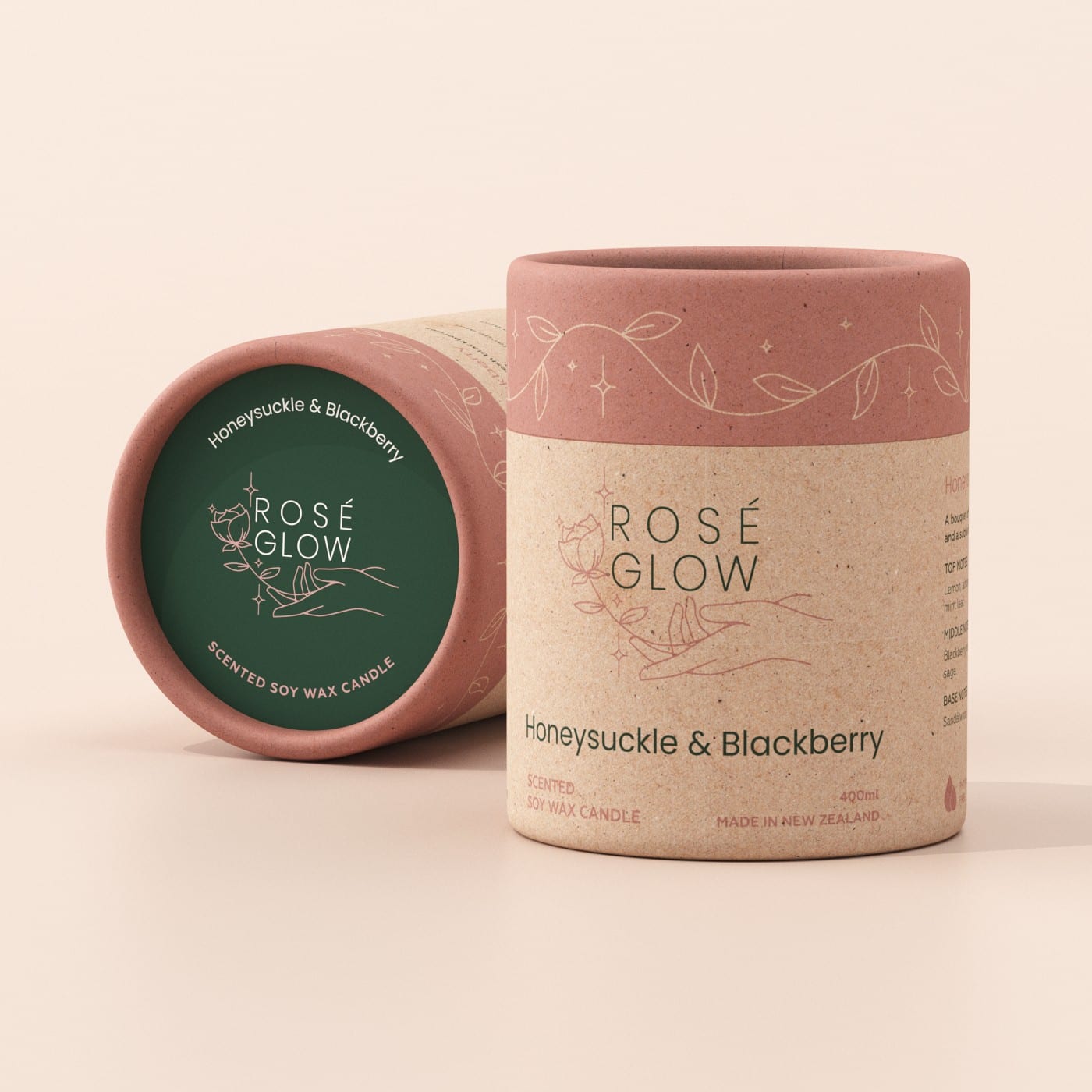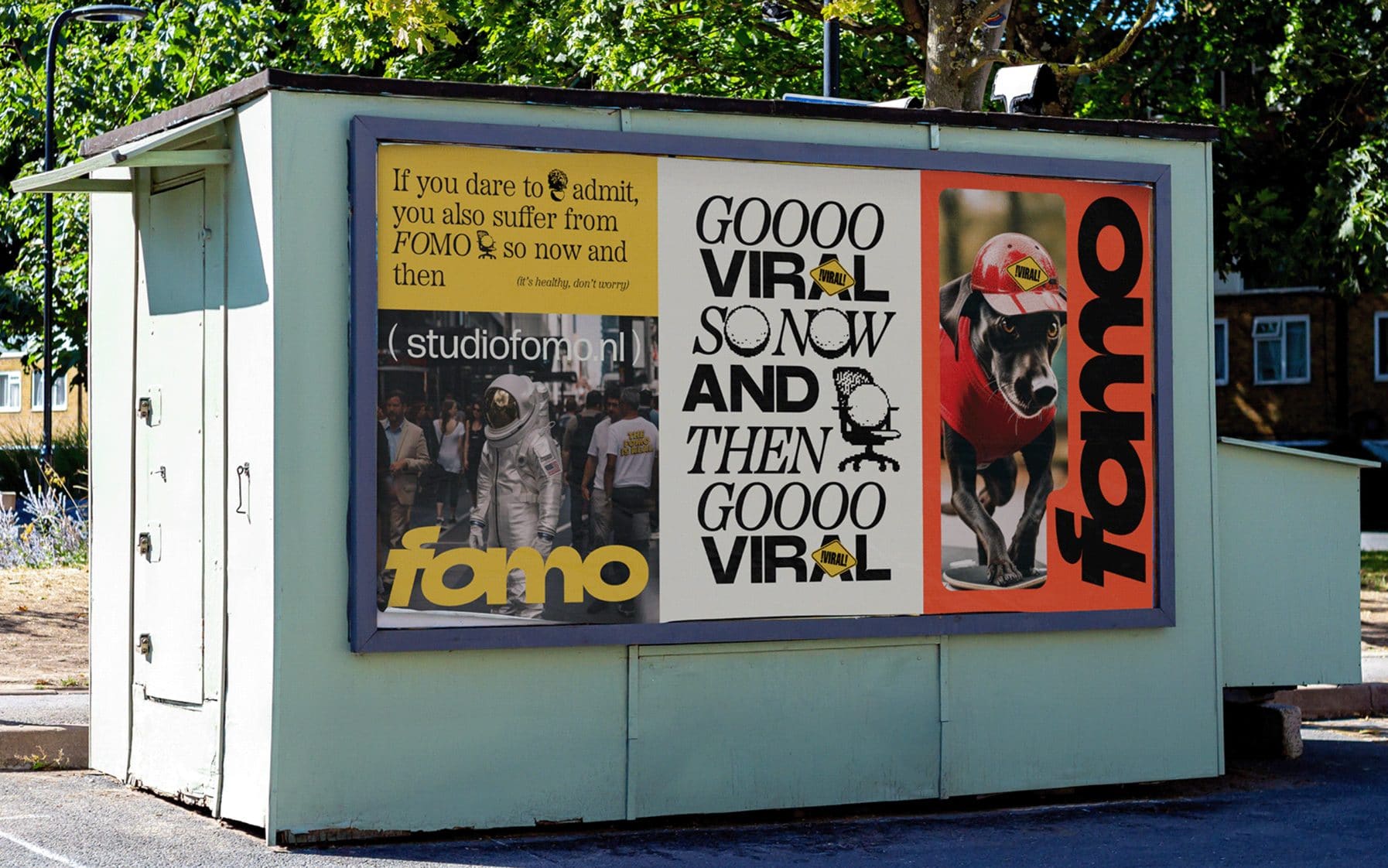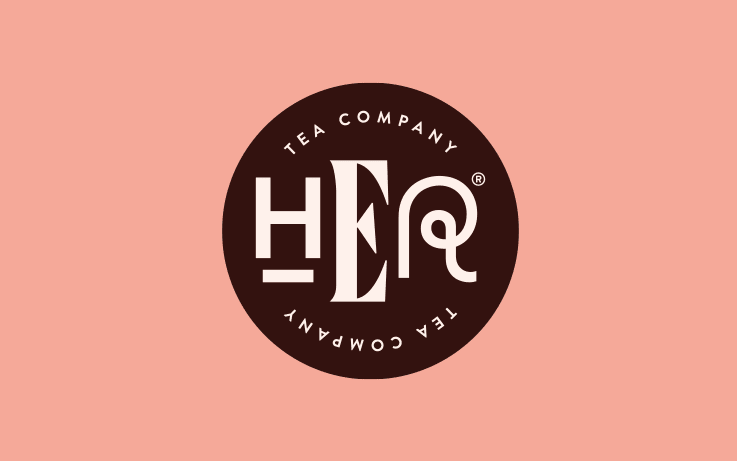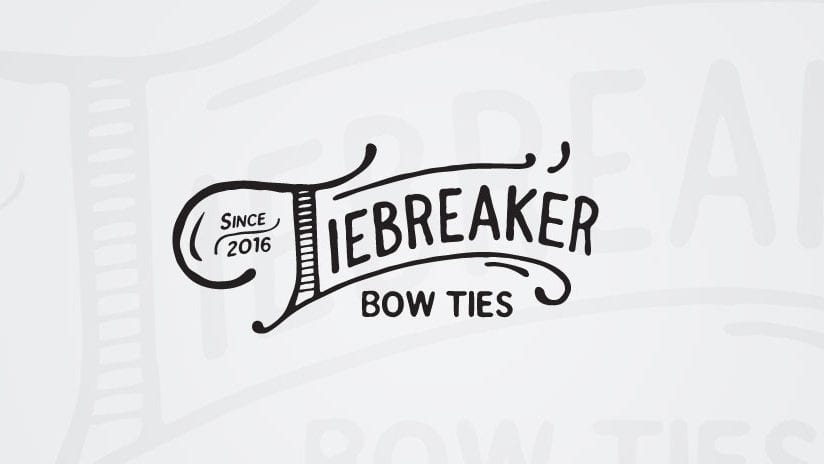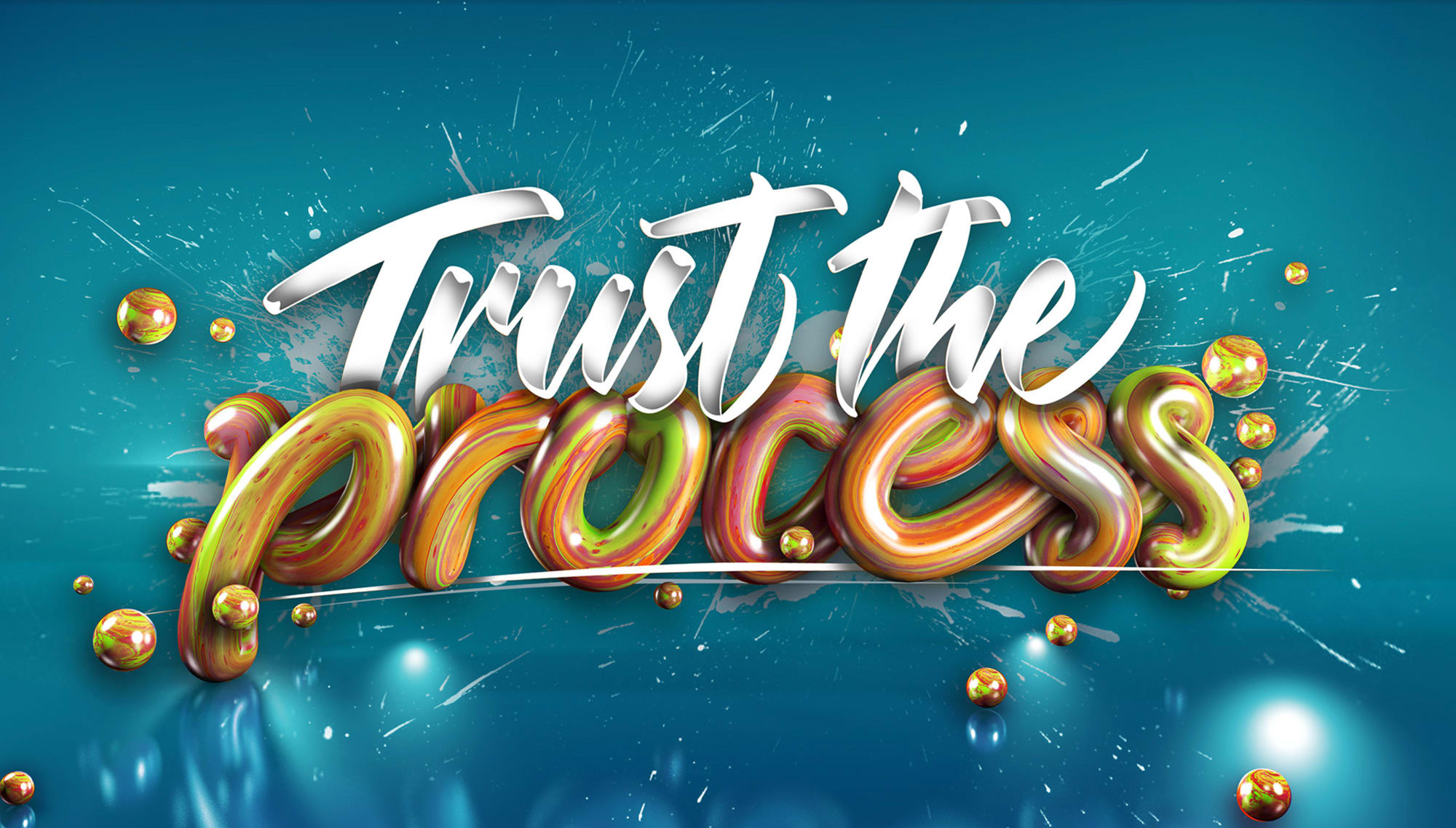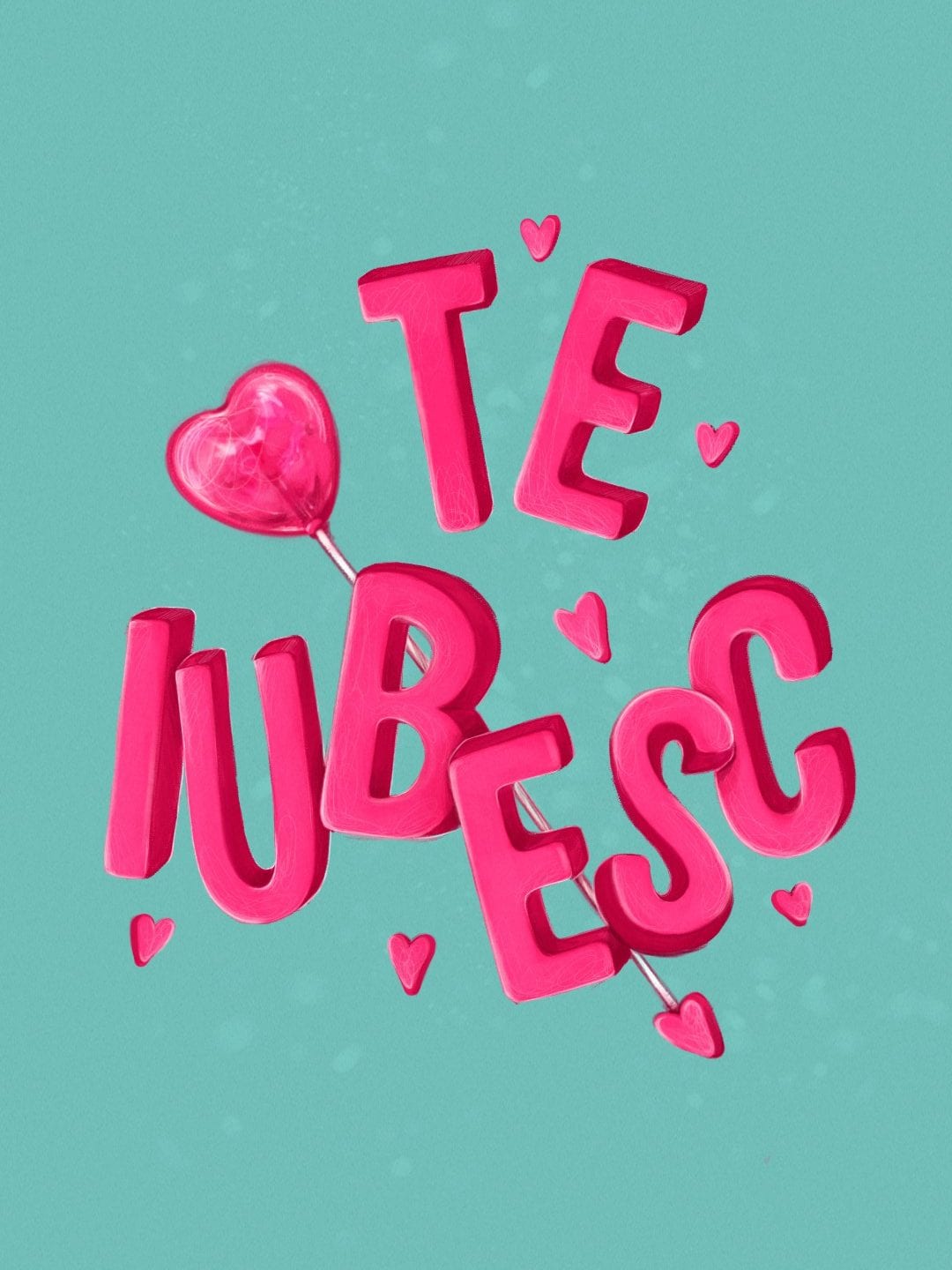
It’s a unique, transitional moment in the digital art world. And the 2024 font design trends reflect this. With so much change, between machine learning and generative AI, many font creators are finding renewed comfort in the hand-crafted techniques of the past. At the same time, a new generation of designers are pushing fonts to creative extremes through letters that move, take up space and drift into the realm of abstraction.
No matter the approach, these seven font design trends for 2024 spring from the imagination of typographers living in an unprecedented digital age. Whether you’re reimagining retro or crafting bold experiments, these fonts speak to readers far beyond their words and add a new frontier for businesses looking to express their brand and perspective on this new world.
7 alluring font trends for 2024
Ultra gothic
As the name implies, gothic fonts are veritable classics. Developed in the Middle Ages for manuscript scribing, the traditional gothic font features heavy black letters and calligraphic techniques like hairline flourishes and angular strokes. But these fonts, reminiscent of the pointed arches of medieval abbeys, have earned an enduring popularity. Just last year, goth went to the mall, but today, goth is growing up.
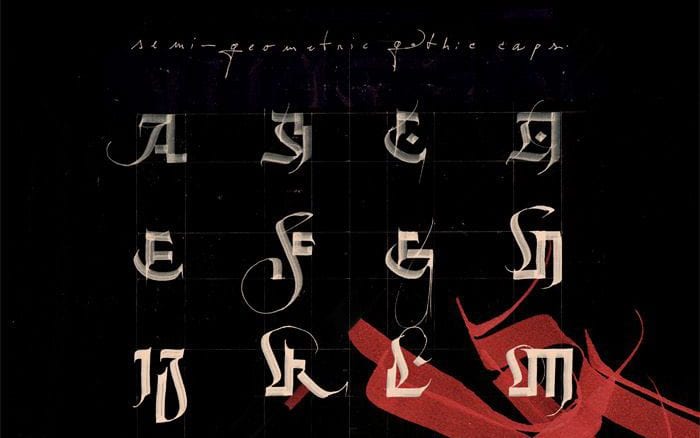
2024’s Ultra gothic trend uses digital tools to achieve effects that the practical business of scribing could not accommodate. These exaggerated strokes are decorative enough to rival medieval architecture, with intricate flourishes that border on illegibility. Gothic fonts are an eternally appealing style for how they combine stable forms with unexpected freehand, granting a personal touch to digital fonts. And while they do carry old-world connotations, the adventurous ornamentation of the ultra gothic fits right at home in magazine typography and logo design lettering.
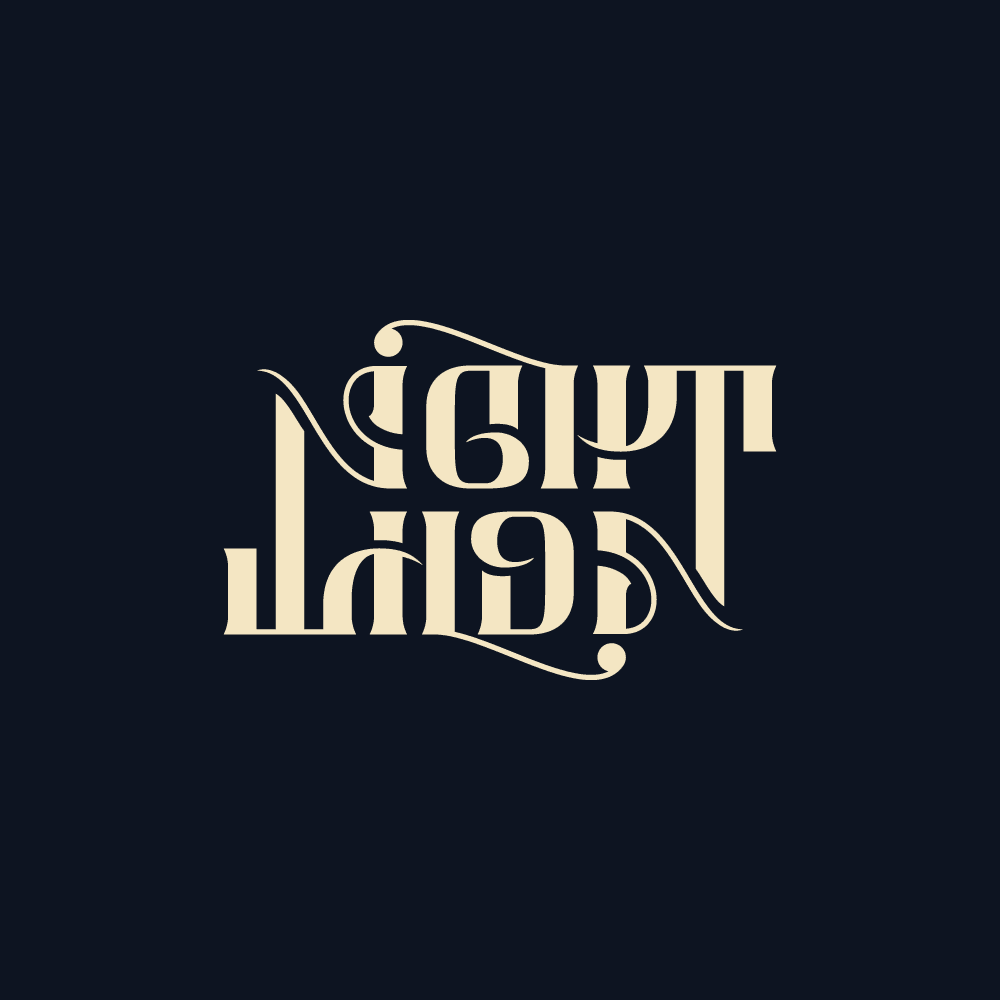
“The Neo Gothic style is already an obscure trend in architecture and literature and is gaining a spotlight in contemporary design with the use of ornaments, blackletter, and calligraphy to create beautiful visuals. It can be used to create high-end luxury brands visuals or even a fresh urban style, mixed with graffiti and street art elements.”
Shapeshifting lettering
If there’s one thing we can learn from the endless ways font designers reimagine the same basic alphabet, it’s that letters are full of shapeshifting magic. And in 2024, we’ll witness fonts that shapeshift right before our very eyes.
The shapeshifting lettering trend takes its inspiration from retro sources like rubber-hose fonts and 70s bubble letters. In this way, it evokes nostalgic joy while bringing the past to life through fluid movement. At the same time, the melting shape of these wobbly letters hints that something is not quite right here—it’s escapism but gently warped.
There’s an inherent tension in escapism because even while it transports the viewer to their happy place, the very need for an escape implies that there’s something to escape from. These fonts play on that tension with a comically corrupted cartoon style, making this trend popular for edgier contexts like music venue posters, streetwear and protest art.
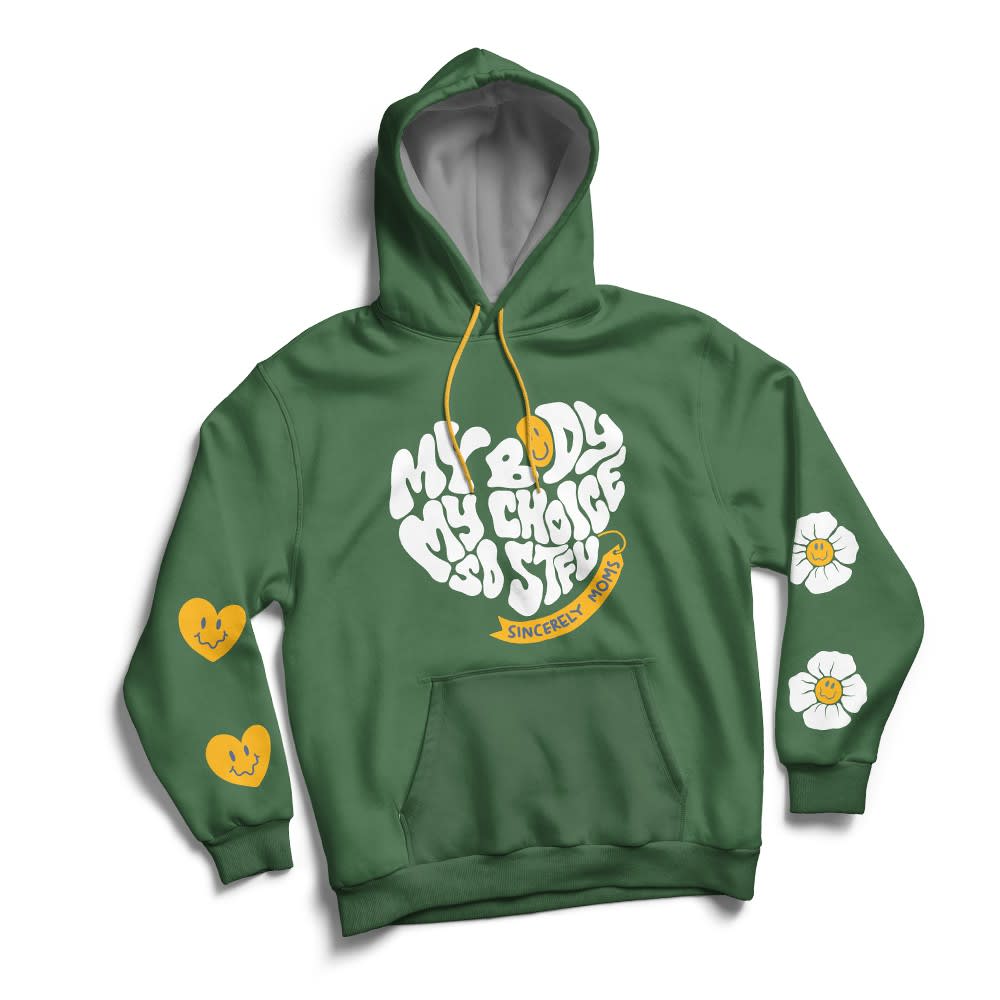
Source: by DR3 via Dribbble
“I love this style! Brings it to life. It combines cartoon style design with contemporary typography.”
yogisnanda, Designer at 99designs by Vista
Source: by aleT via 99designs by Vista
Source: by Fonts/Typography via Dribbble
Delicate sans serif
When we think of delicate fonts, scripts tend to come to mind—the soft, looping cursive that frequently finds its way onto wedding invitations. Sans serif fonts, by contrast, are straightforward and functional, pure letterforms without decoration. But in 2024, sans serifs are showing their delicate side through narrow strokes and wide kerning.
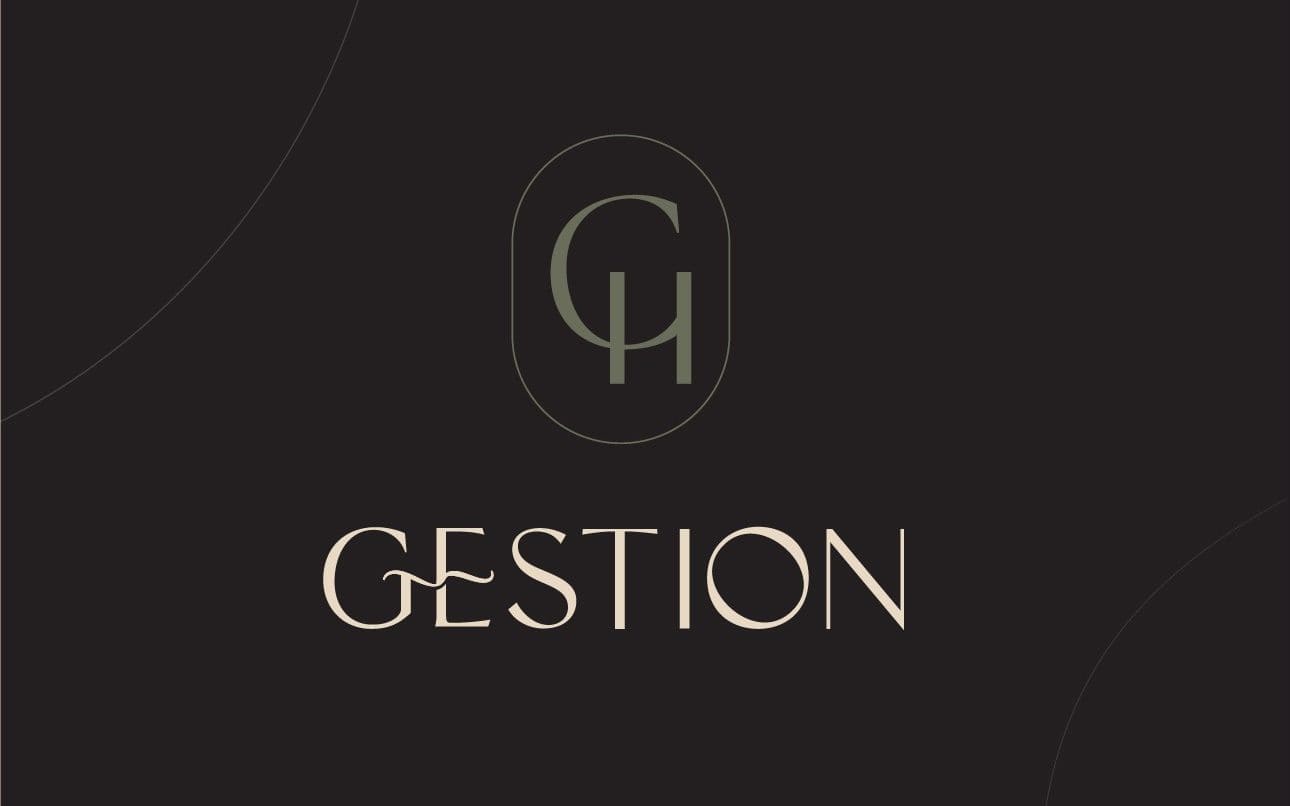
Source: by Sepehr™ via 99designs by Vista
Source: by smashingbug via 99designs by Vista
Fitting in with recent minimalist trends, Delicate sans serifs offer versatile fonts whose unassuming forms couldn’t clutter a composition even if they tried. Because they exude confidence through their subtlety, these fonts achieve a classy and refined look. They’re especially popular with wellness packaging and monogram logos, projects that want to create a relaxing atmosphere that feels professional and sleek.
Such a broad range signals the sheer diversity of emerging designers. At the same time, it speaks to the fitful and restless age of font design we are entering. No matter the cause, the result is exciting font design trends that will keep us guessing throughout the new year.